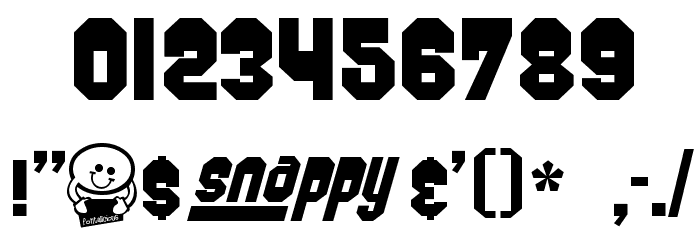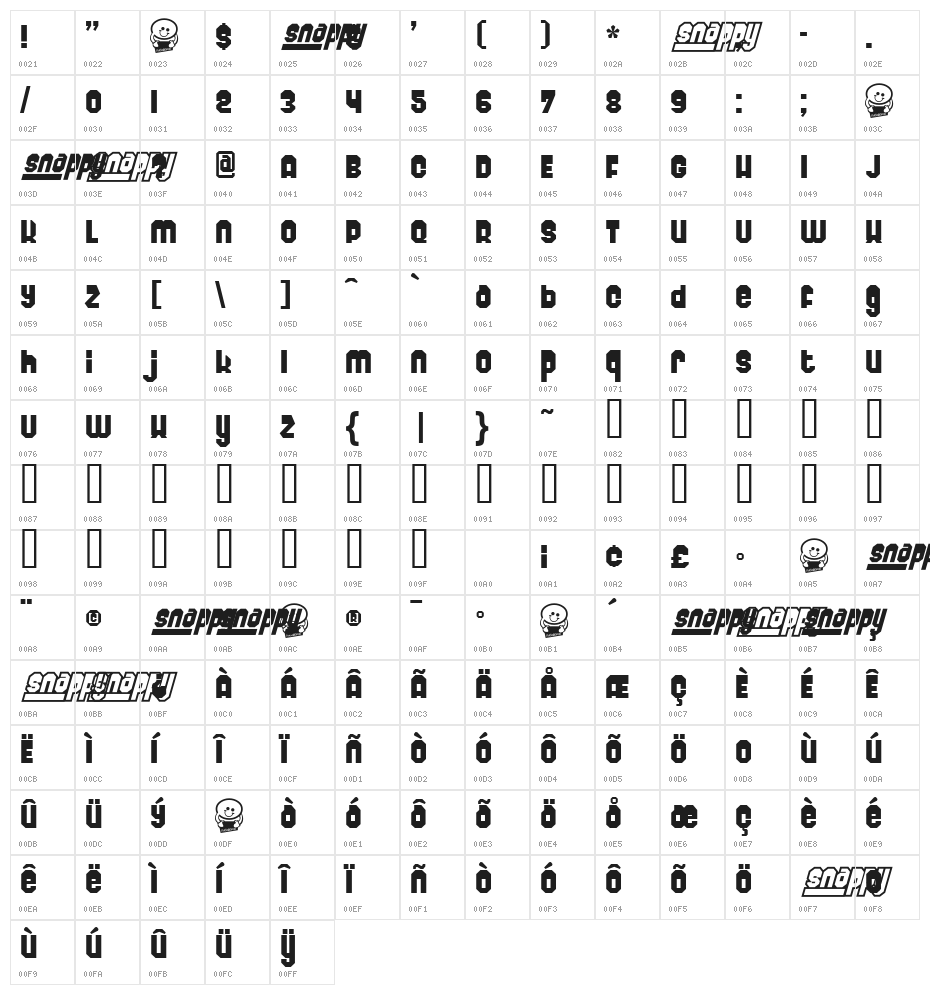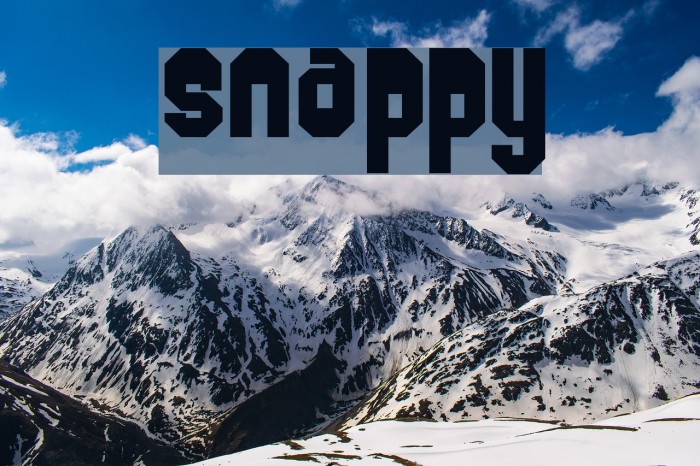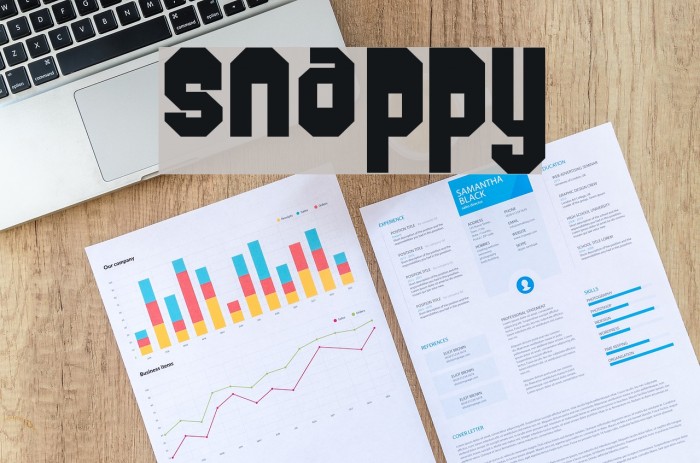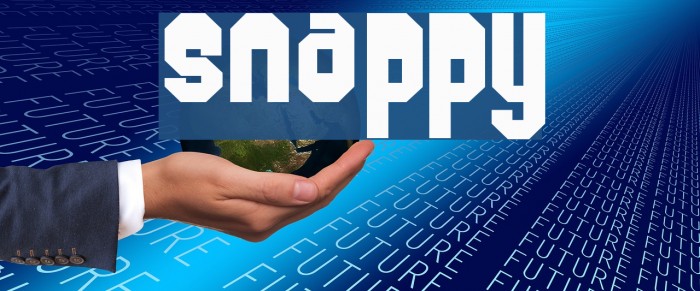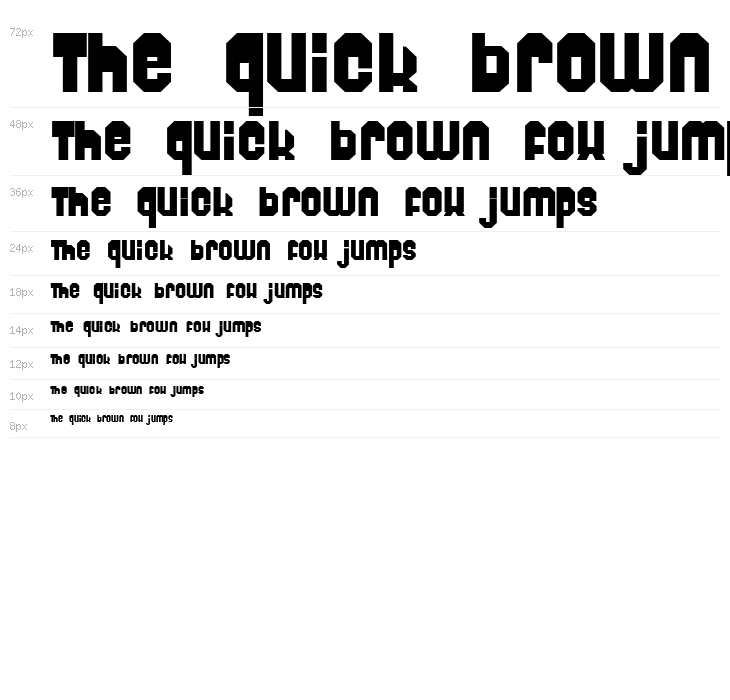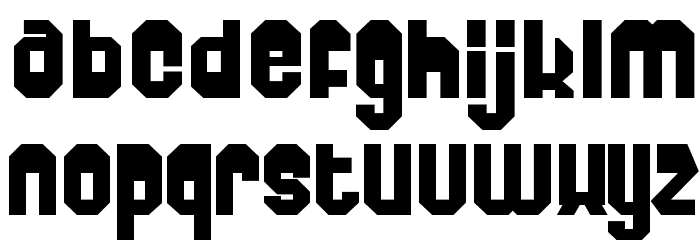
Snappy Font
Snappy Description
This bold and striking font features a geometric, blocky design with sharp angles and a strong presence. The uppercase and lowercase letters maintain a consistent width, creating a uniform appearance. The numbers and special characters follow the same bold style, ensuring cohesion across all elements. The font's thick strokes and angular shapes give it a modern, industrial feel, making it ideal for attention-grabbing designs. Its unique style is both eye-catching and memorable, perfect for projects that require a bold statement.